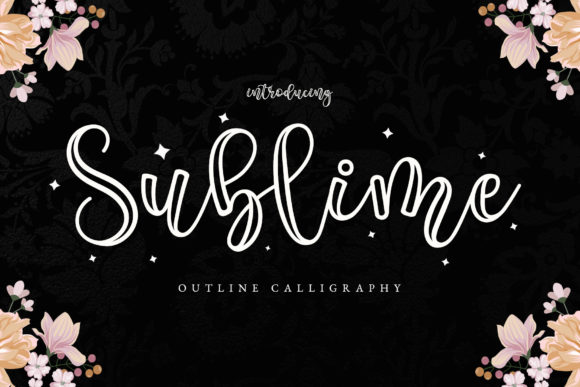
Sublime Font: Elevate Your Designs with Elegance and Sophistication
In the world of typography, fonts play a crucial role in conveying the tone and personality of a design. Among the numerous fonts available, Sublime Font stands out for its unique and elegant handwritten style. This beautiful font is perfect for designs that require a personalized touch, such as wedding invitations, thank you cards, weddings, greeting cards, logos, and more.
What is Sublime Font?
Sublime Font is a carefully crafted handwritten font that exudes elegance and sophistication. Its unique style makes it an excellent choice for designers looking to add a personal touch to their creations. The font’s flowing lines and curves create a sense of movement, making it perfect for designs that require a touch of whimsy and romance.
Versatile Uses of Sublime Font
Sublime Font is an incredibly versatile font that can be used in a variety of design projects, including:
- Wedding invitations and wedding cards: Add a touch of elegance and romance to your wedding designs with Sublime Font.
- Thank you cards: Express gratitude in style with this beautiful handwritten font.
- Greeting cards: Create stunning greeting cards for special occasions like birthdays, anniversaries, and holidays.
- Logos: Use Sublime Font to create unique and memorable logos for businesses and brands.
- Social media graphics: Elevate your social media presence with elegant and sophisticated graphics featuring Sublime Font.
Benefits of Using Sublime Font
Using Sublime Font in your designs offers several benefits, including:
- Uniqueness: Sublime Font’s distinctive style sets it apart from other fonts, ensuring your designs stand out from the crowd.
- Elegance: The font’s elegant and sophisticated style makes it perfect for designs that require a touch of luxury and refinement.
- Versatility: Sublime Font can be used in a wide range of design projects, from wedding invitations to logos and social media graphics.
- Easy to read: Despite its elegant style, Sublime Font is easy to read, making it perfect for designs that require a clear and concise message.
Tips for Using Sublime Font
To get the most out of Sublime Font, follow these tips:
- Pair with complementary fonts: Combine Sublime Font with complementary fonts to create a visually appealing design.
- Use contrasting colors: Use contrasting colors to make your design stand out and ensure Sublime Font is easily readable.
- Experiment with sizes: Experiment with different font sizes to create visual hierarchy and add emphasis to specific design elements.
- Keep it simple: Don’t overcomplicate your design – keep it simple and elegant to let Sublime Font shine.
Sublime Font Inspiration
Here are some inspiring examples of Sublime Font in use:
- Wedding invitations featuring Sublime Font with beautiful floral patterns and elegant typography.
- Social media graphics using Sublime Font to promote special offers and events.
- Logos created with Sublime Font that exude elegance and sophistication.
In conclusion, Sublime Font is a unique and elegant handwritten font that can elevate your designs with its sophisticated style. Its versatility and ease of use make it perfect for a wide range of design projects, from wedding invitations to logos and social media graphics. By following the tips outlined above and using Sublime Font in your designs, you’ll be sure to create stunning and memorable creations that leave a lasting impression.